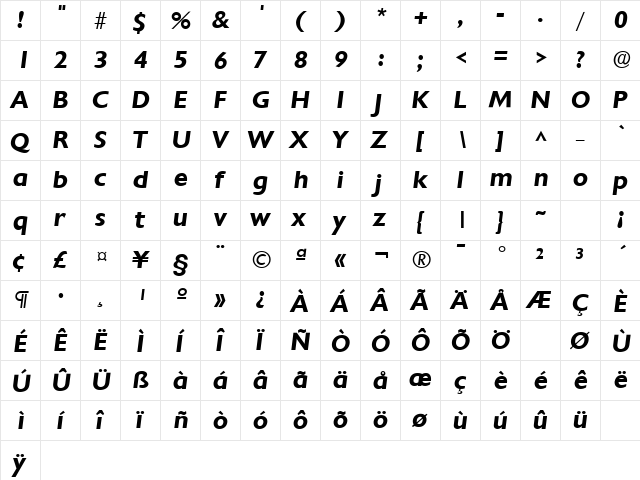
Chantilly Bold Italic
Design Context for Chantilly Typeface
Chantilly takes a measured approach to typography — its balanced proportions and neutral character make it a reliable workhorse for both digital and print work. The dynamic lean of this cut emphasises speed and emphasis in any layout. The heavy weight commands attention and anchors typographic hierarchies.
Pro Tip: Use Chantilly for emphasis, pull quotes, and subheadings where its slanted energy can add rhythm to the layout.